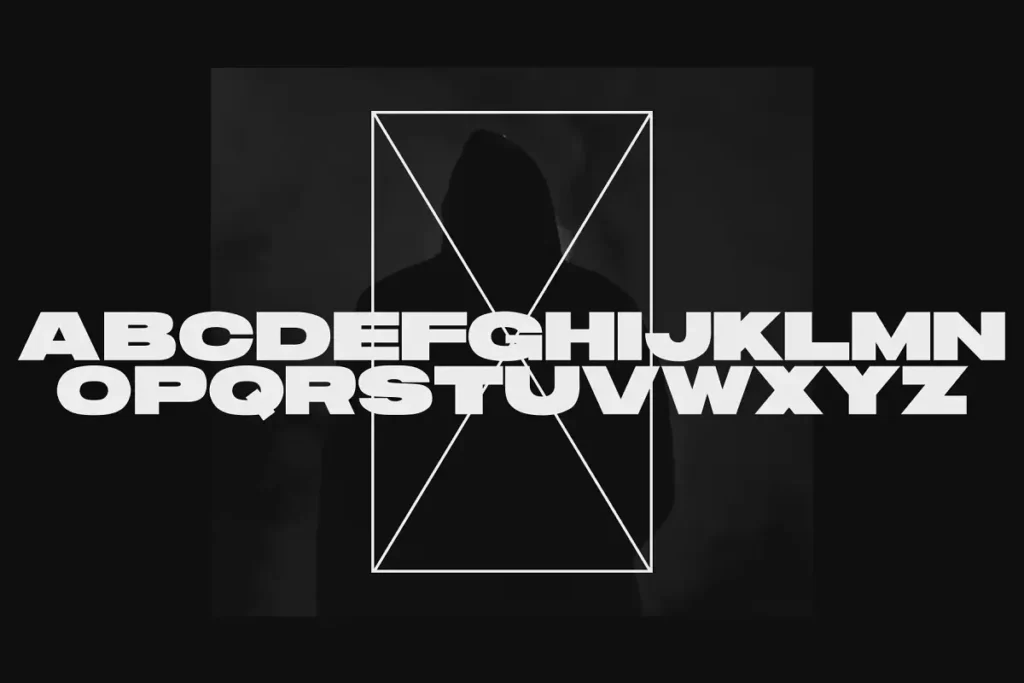
Introducing NF ULTRA Free Bold Expanded Display Font: the avant-garde choice for designers seeking to redefine boundaries! 🎨 This cutting-edge geometric sans-serif font pushes the limits with its stretched design, offering a living typeface that evolves. Watch as it continually expands with additional characters, glyphs, and ligatures, growing alongside your creative journey. 💡 Embrace its bold and unmistakably clear aesthetic to make a powerful statement in any project. Whether it’s for branding, posters, or digital design, NF ULTRA is your go-to for standing out and making an impact!
NF ULTRA Free Bold Expanded Display Font